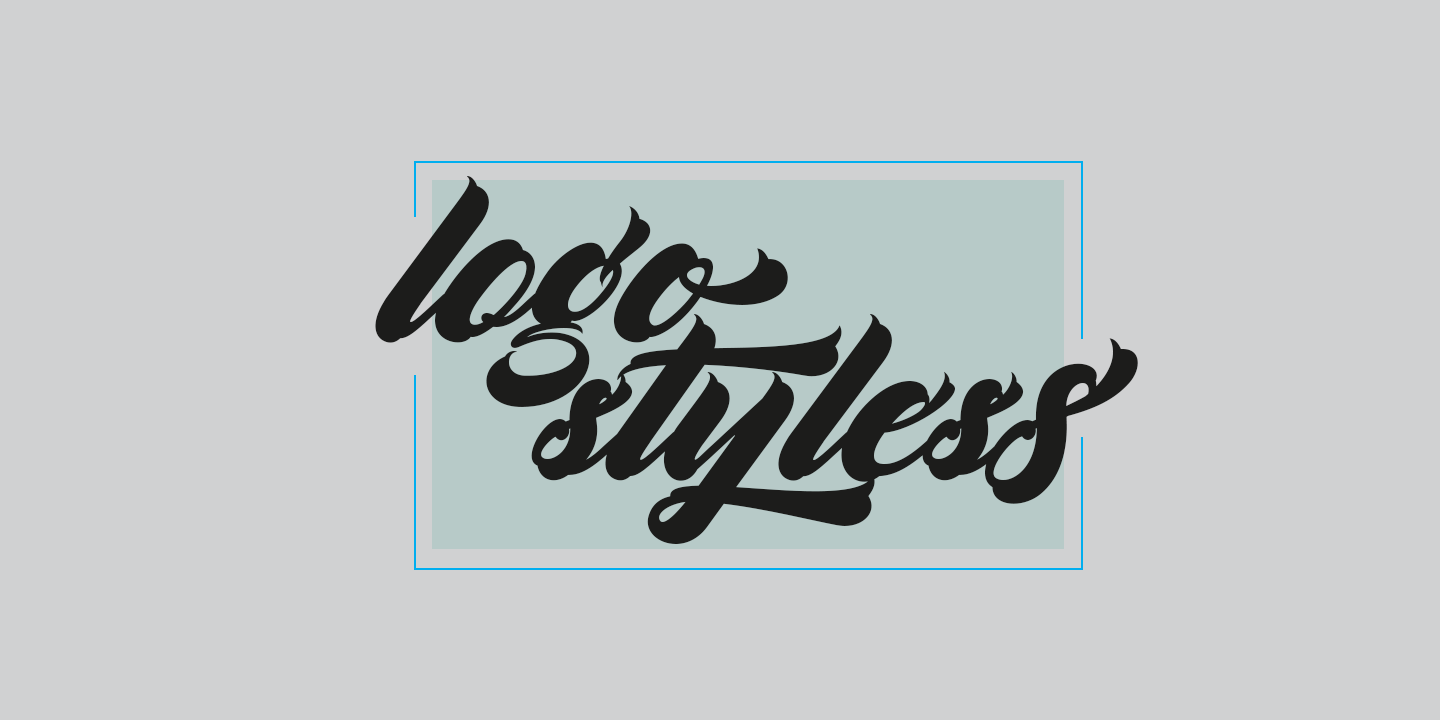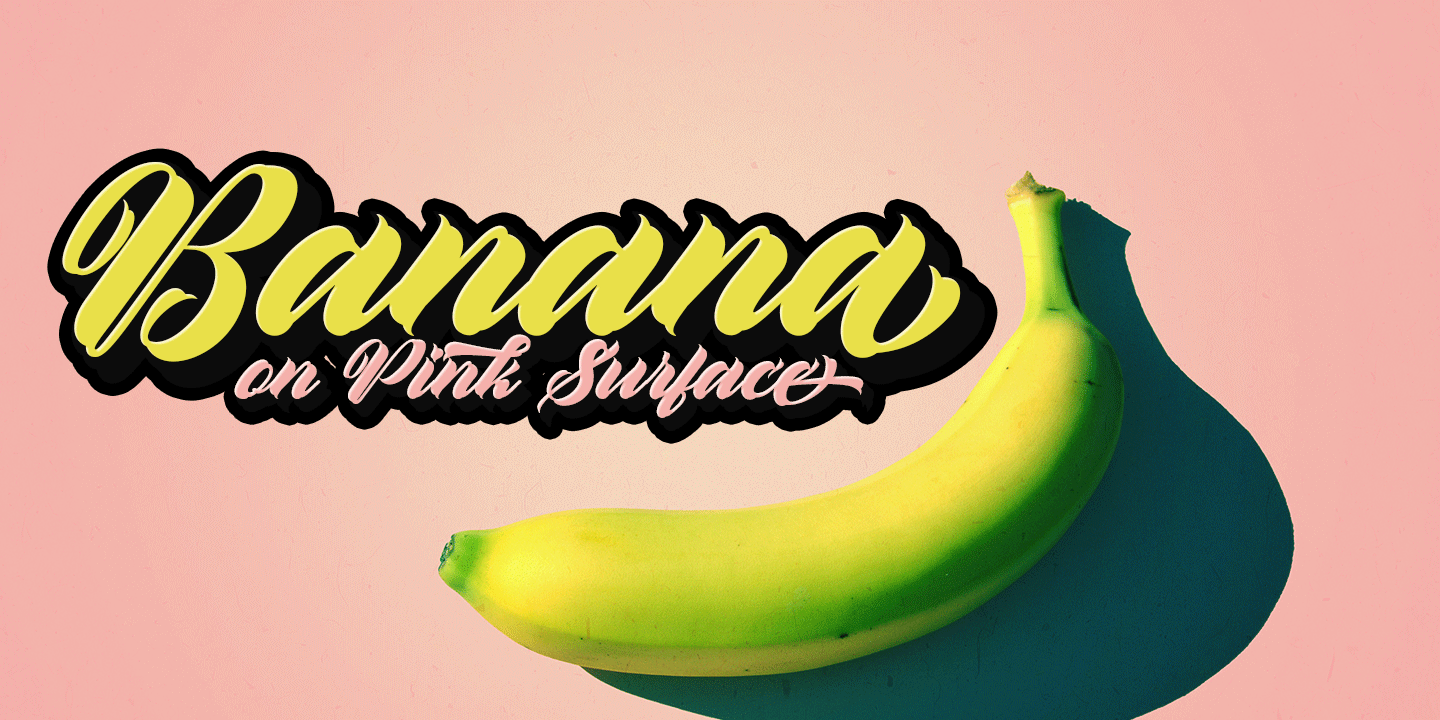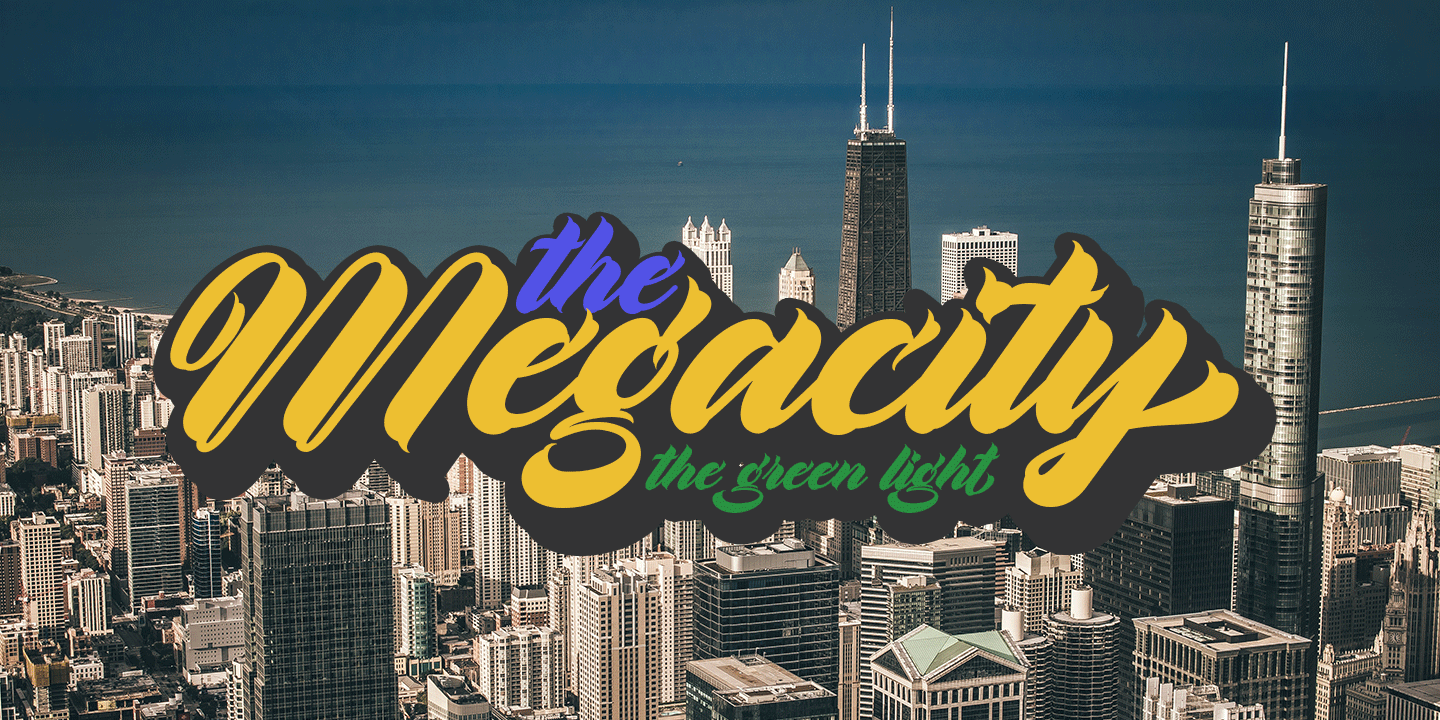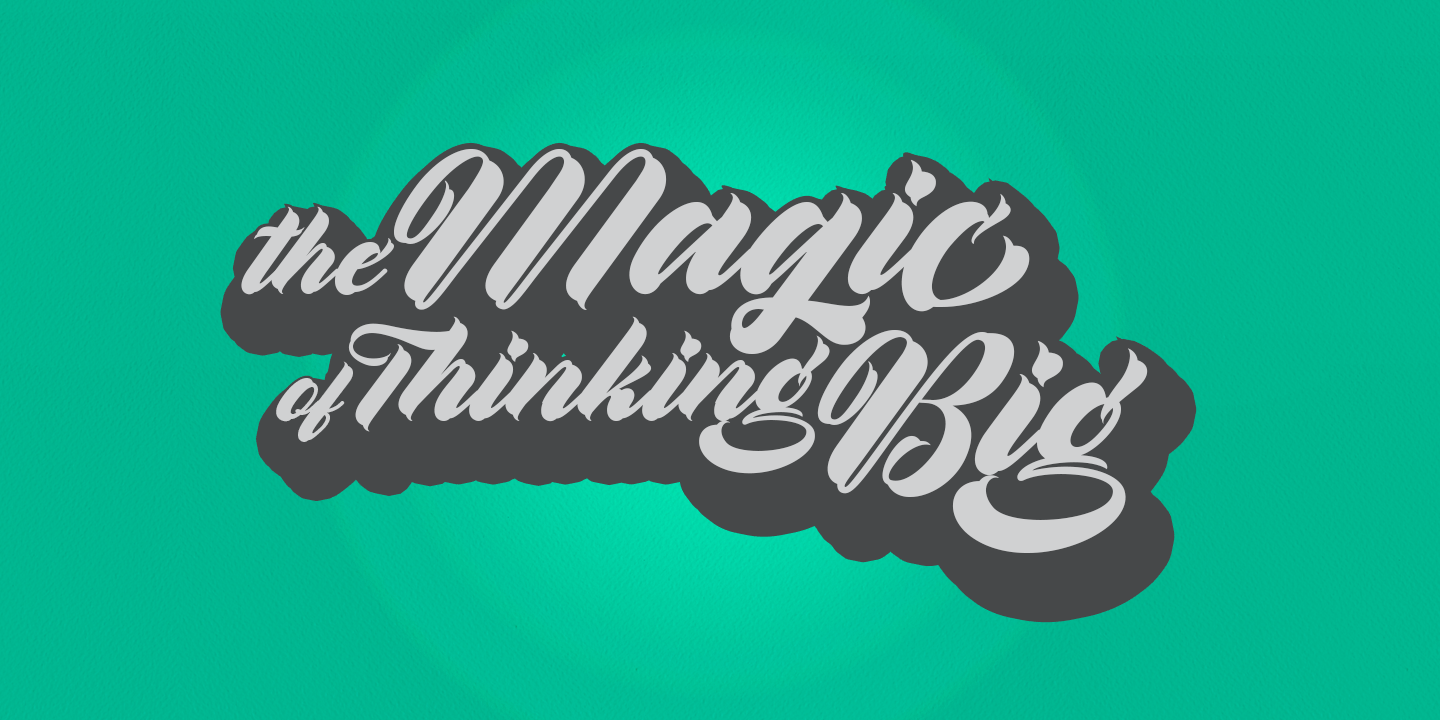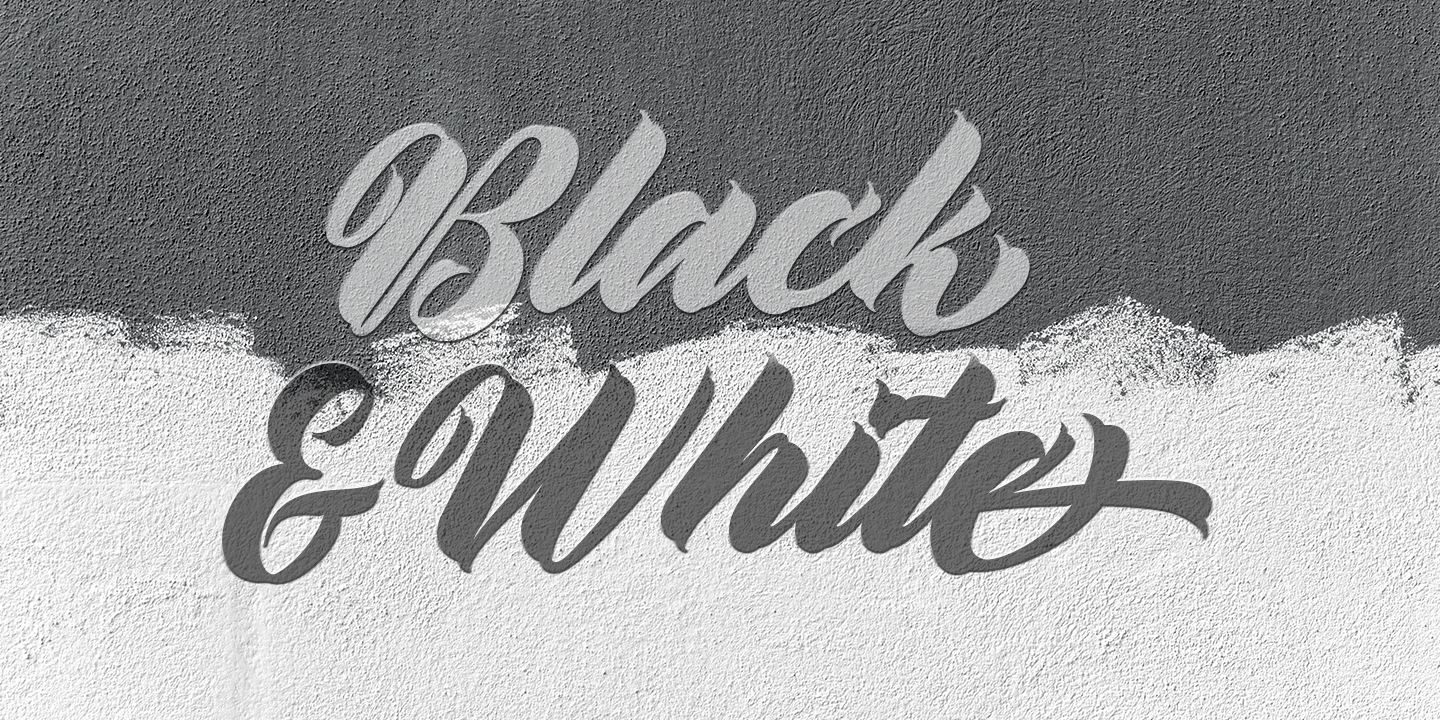
Platanos
Platanos Script is a font bold, so, brush script that is beautiful and unique, it is a model of modern calligraphy typefaces, in combination with a calligraphy writing style.
Can be used for various purposes.such as headings, logos, wedding invitation, t-shirt, letterhead, lable, news, posters, badges etc. To enable the OpenType Stylistic alternates, you need a program that supports OpenType features such as Adobe Illustrator CS, Adobe Indesign & CorelDraw X6-X7.